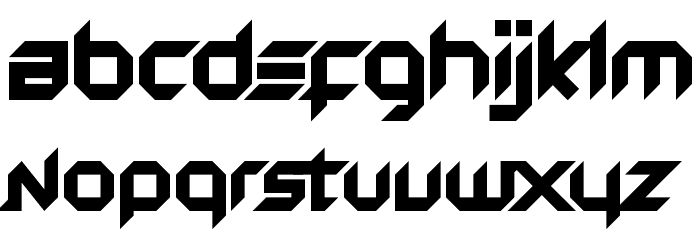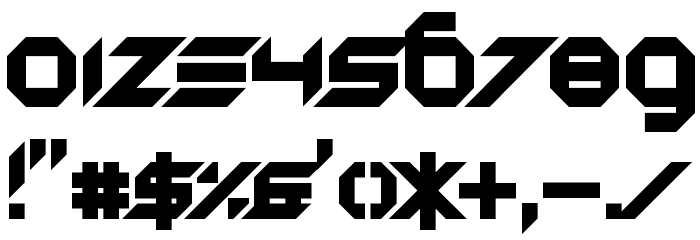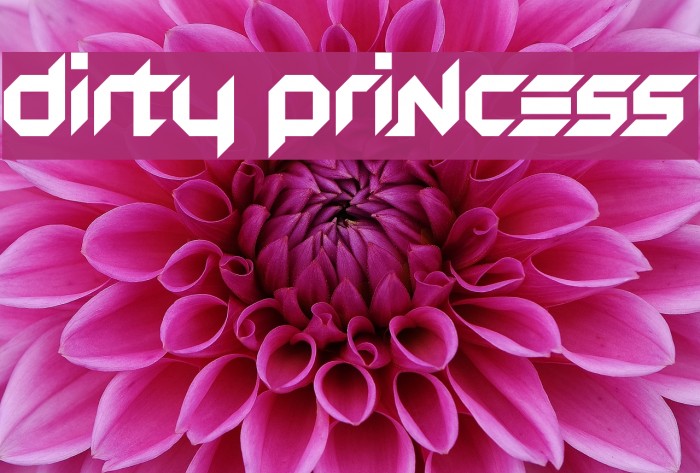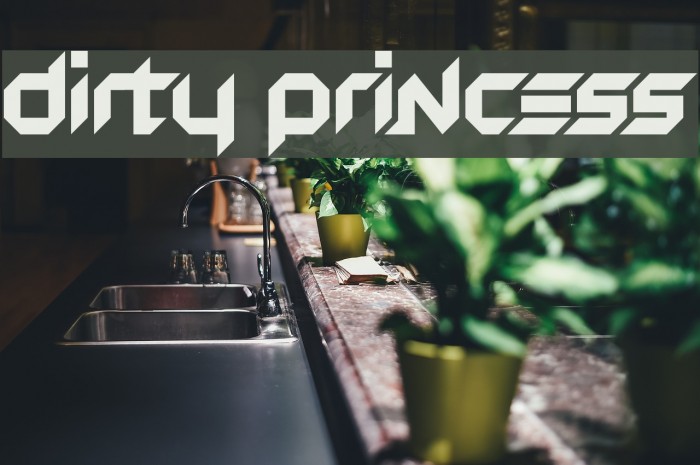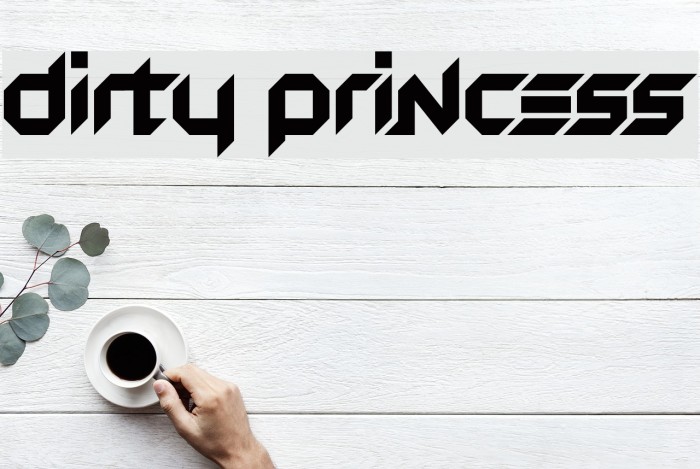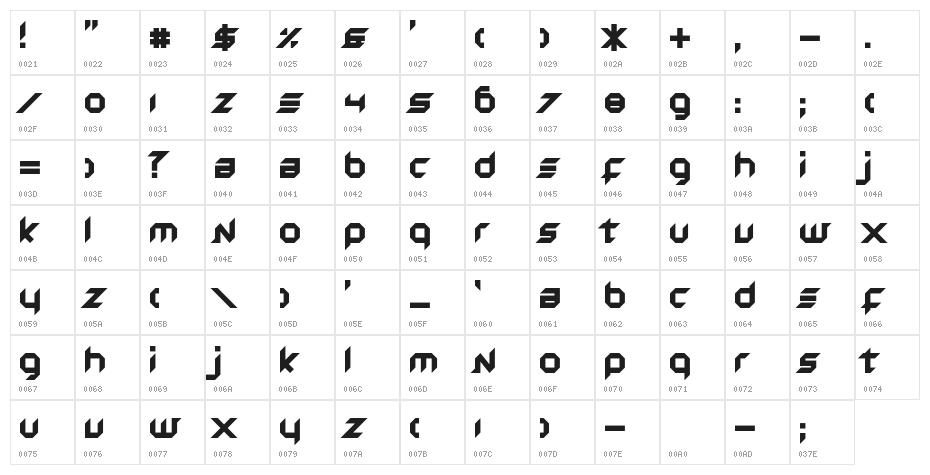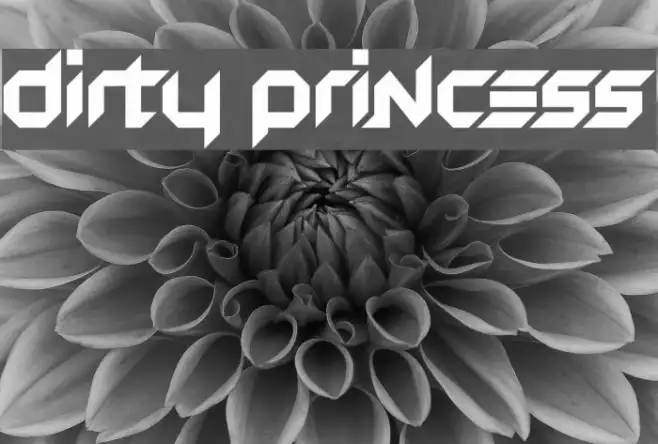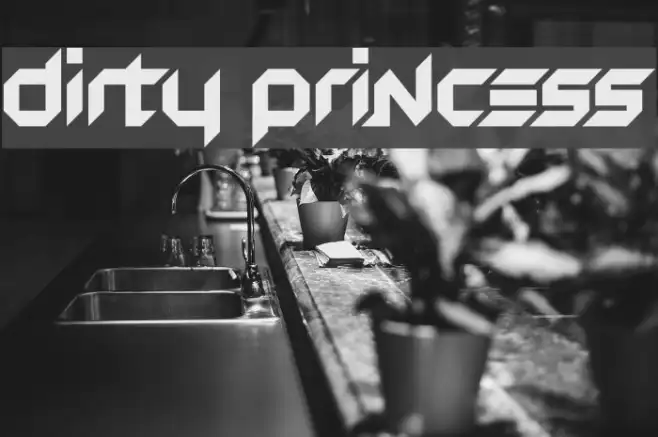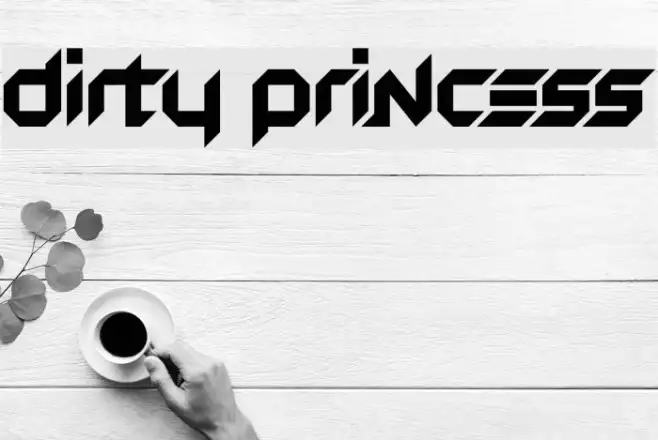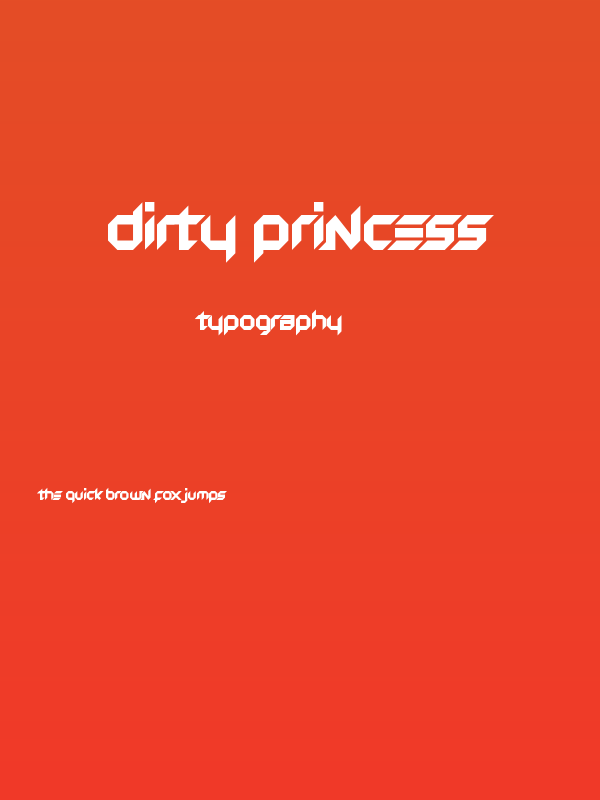
Dirty Princess Font
This font features a bold, geometric design with sharp angles and a futuristic aesthetic. The characters are constructed with a series of straight lines and angular cuts, giving it a dynamic and edgy appearance. The uppercase and lowercase letters maintain a consistent style, with the lowercase mirroring the uppercase in form and structure. The numbers and special characters follow the same design principles, ensuring a cohesive look across all glyphs. The font's unique style makes it stand out, ideal for projects that require a modern and unconventional typeface.
- Proposed Projects: Ideal for sci-fi themed designs, video game titles, tech branding, and edgy posters.
- Overall Style: Futuristic, Edgy